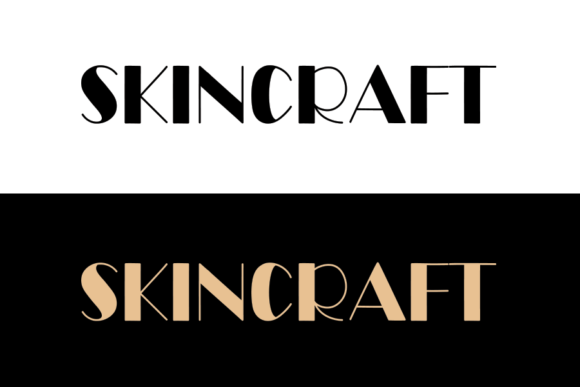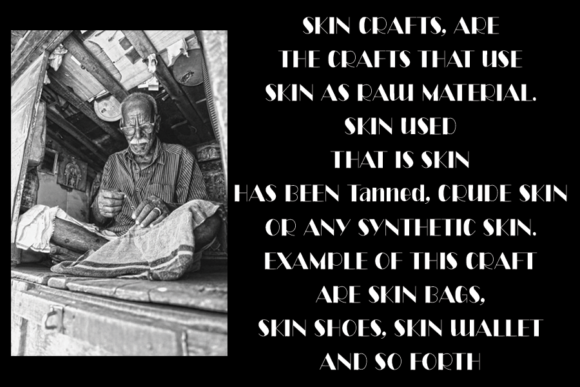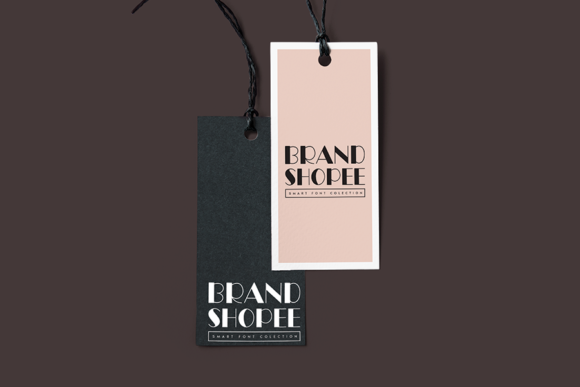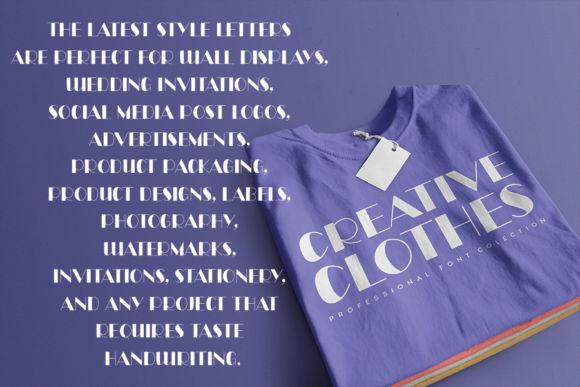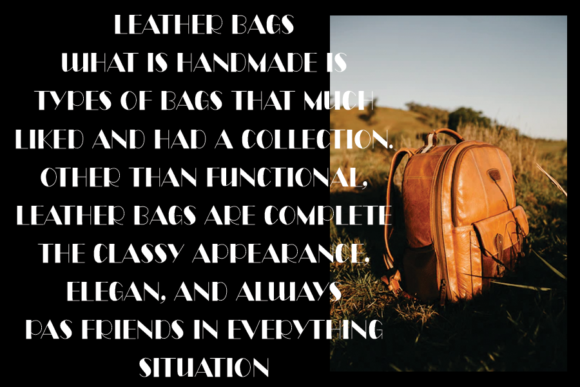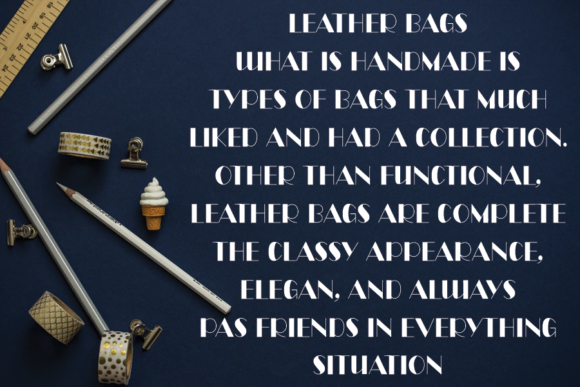
Introduction to Skincraft Font
Skincraft is a minimal, yet elegant and unique sans serif font.
Suitable to a wide variety of designs due to its neat and simple style, Skincraft has the potential to become your favorite go-to font, no matter the occasion .
Key Features of Skincraft Font
Why Choose Skincraft Font?
Skincraft Font offers exceptional quality and versatility, making it a valuable addition to your design toolkit. Whether you’re creating for personal projects or commercial use, Skincraft Font delivers professional results.